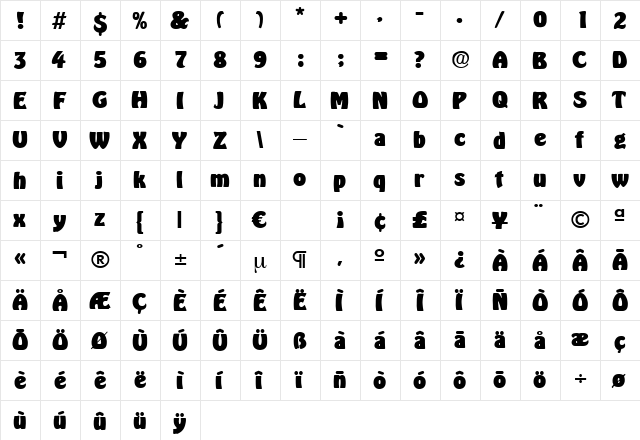
HoboExtraBold Regular
Design Context for HoboExtraBold Typeface
HoboExtraBold takes a measured approach to typography — its balanced proportions and neutral character make it a reliable workhorse for both digital and print work. Its bold stroke weight gives it real presence on the page.